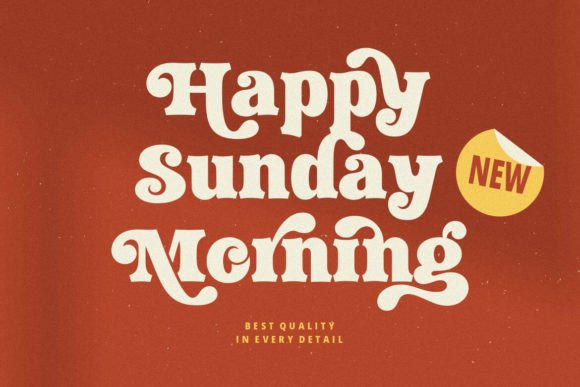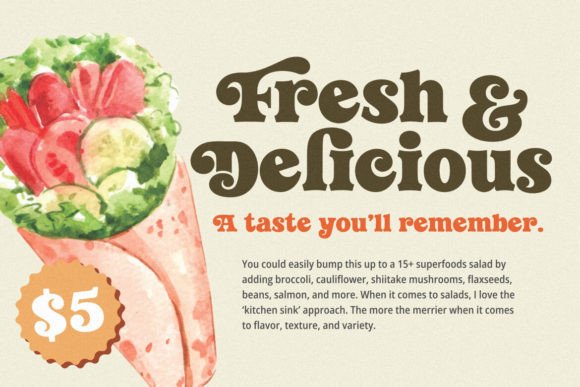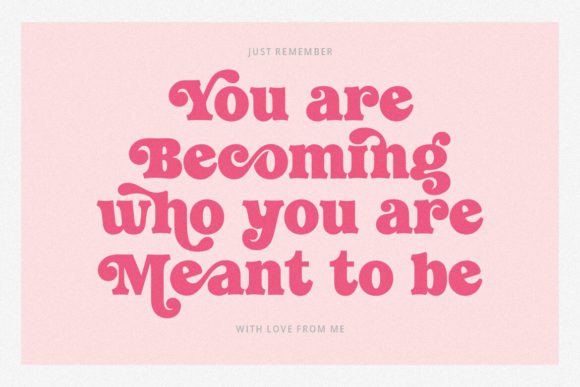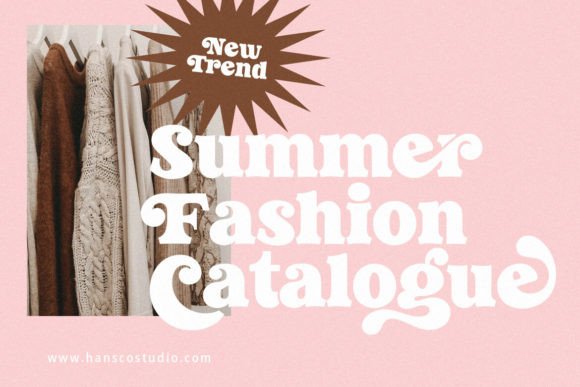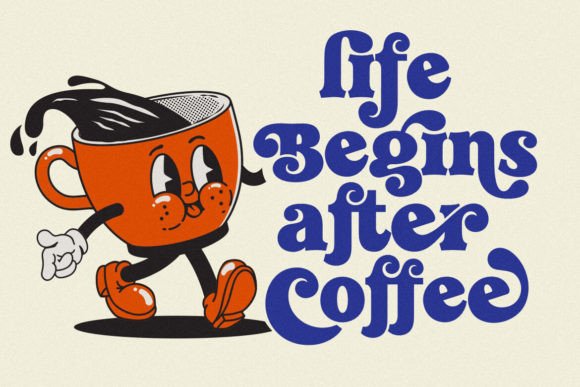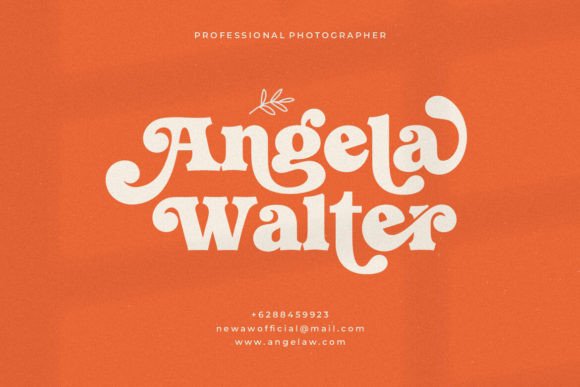
Introduction to Magic Vintage Font
You know that moment when you’re working on a design project and you need that one perfect font to bring it all together? The search is on, and you scroll through page after page of options, hoping to find the one that sets your creative vision ablaze. For designers, the right font can make all the difference between a decent design and a truly exceptional one.
Enter Magic Vintage Font, a bold retro serif font that’s sure to transport your designs to a bygone era of elegance and sophistication. With its strong, confident letterforms and timeless charm, this font is the ultimate design resource for anyone looking to add a touch of vintage flair to their creative project.
Key Features of Magic Vintage Font
- Unique blend of vintage and magical elements, perfect for creative projects that require a touch of mysticism.
- Includes a wide range of characters, including uppercase and lowercase letters, numbers, and special symbols.
- Perfect for designers working on fantasy, adventure, or mystical-themed projects, adding a touch of magic to their creative work.
Honest Review: Magic Vintage Font
I recently stumbled upon the Magic Vintage Font, and I must say it’s been a great addition to my design arsenal. As a designer, I’m always on the lookout for high-quality fonts that can elevate my creative projects.
One of the standout features of this font is its ability to work seamlessly with a transparent background, making it perfect for designs where you want the text to stand out without any distractions. ✨
The font itself is beautifully crafted, with intricate details that give it a unique, vintage feel. I’ve been using it for a range of projects, from wedding invitations to branding materials, and it’s consistently impressed.
Here are some of the pros and cons I’ve noticed:
- ✨ Works well with transparent backgrounds
- ✨ High quality and intricately detailed
- ✨ Great for creative projects, such as branding and invitations
- ⚠️ Limited character set, which may be a concern for some users
- ⚠️ Not ideal for large blocks of text, as it can become overwhelming
Overall, I’m thoroughly impressed with the Magic Vintage Font. It’s a fantastic design resource that’s perfect for designers who want to add a touch of elegance and sophistication to their projects. And the best part? It’s available for free download, making it an absolute steal.
Using Magic Vintage Font in PowerPoint/Word
To use the Magic Vintage Font in PowerPoint or Word, follow these steps: Install the font on your computer, create a new document, and select the font in the font menu. You can adjust the font size, color, and style to your liking, and add the text to your design.
Tips for Getting the Most Out of Magic Vintage Font
To get the most out of the Magic Vintage Font, use it in conjunction with other design elements, such as distressed textures and vintage images. You can also experiment with different font sizes and styles to create a unique look.
The Magic Vintage Font is perfect for use in a variety of creative projects, including: invitation designs, menu cards, and social media graphics. It’s also a great resource for designers who want to add a touch of vintage charm to their designs.